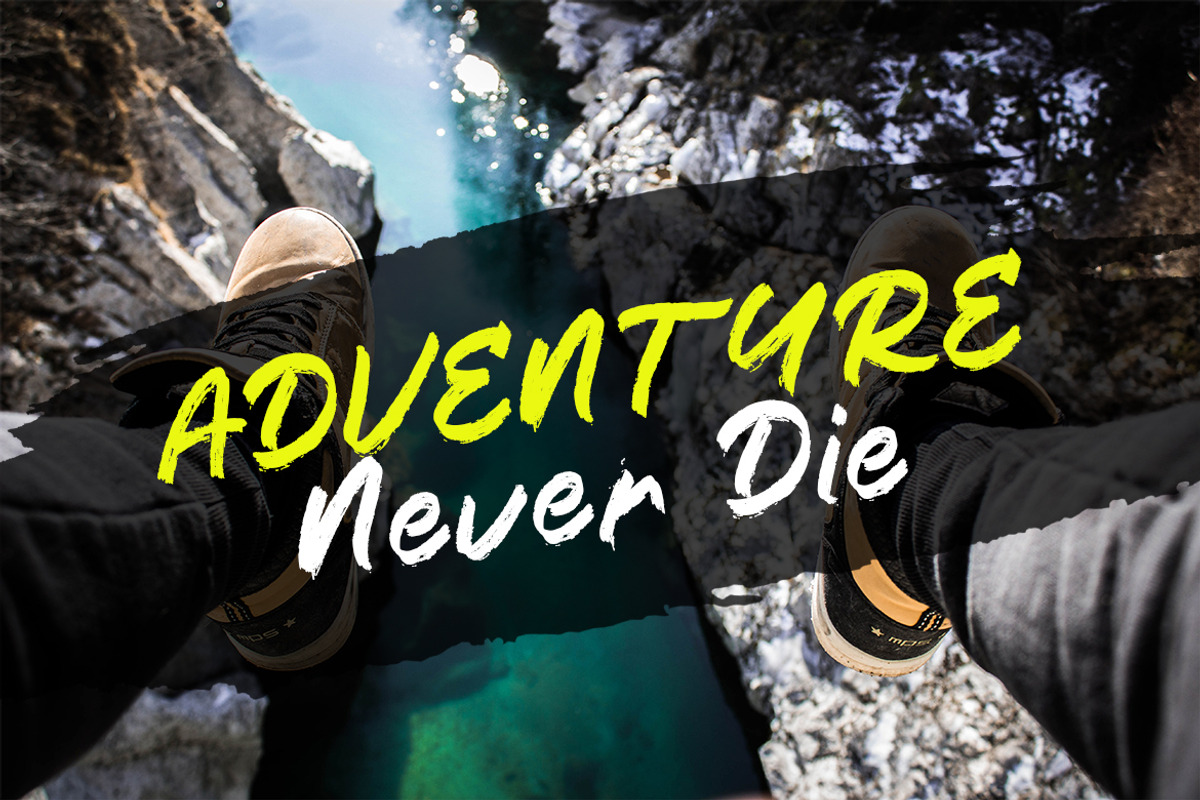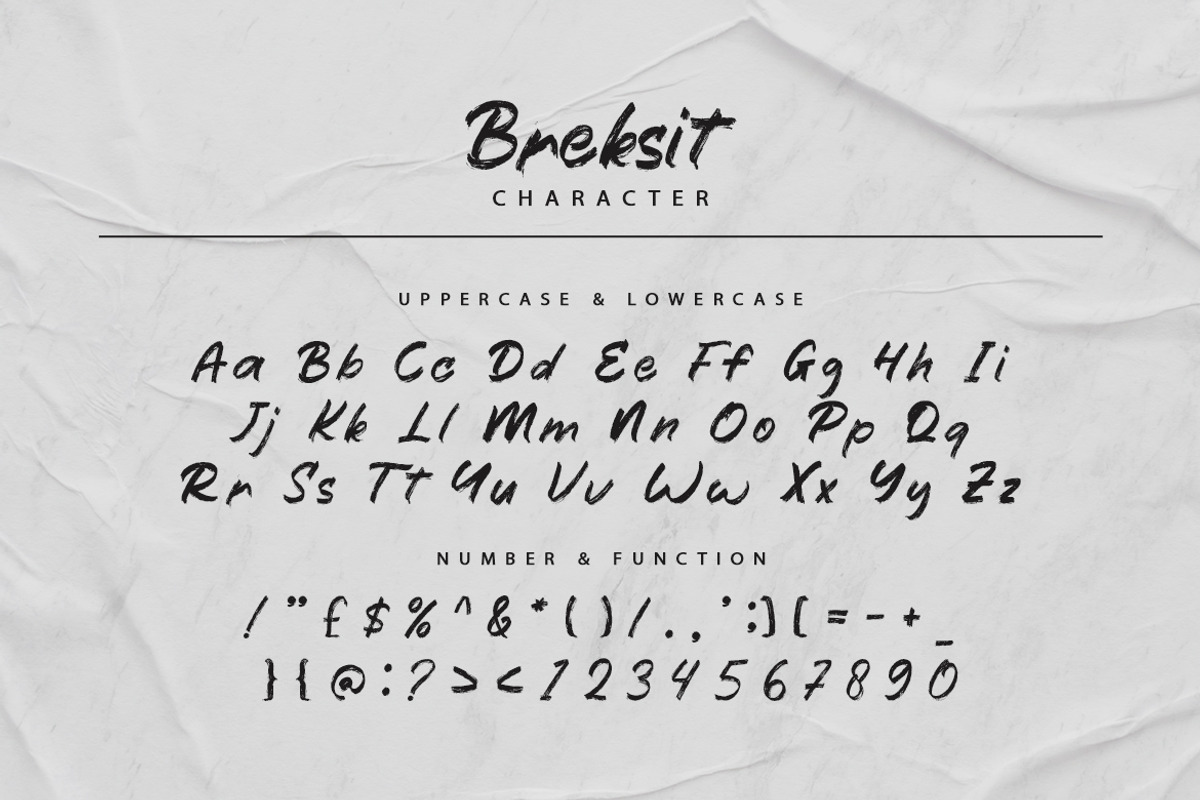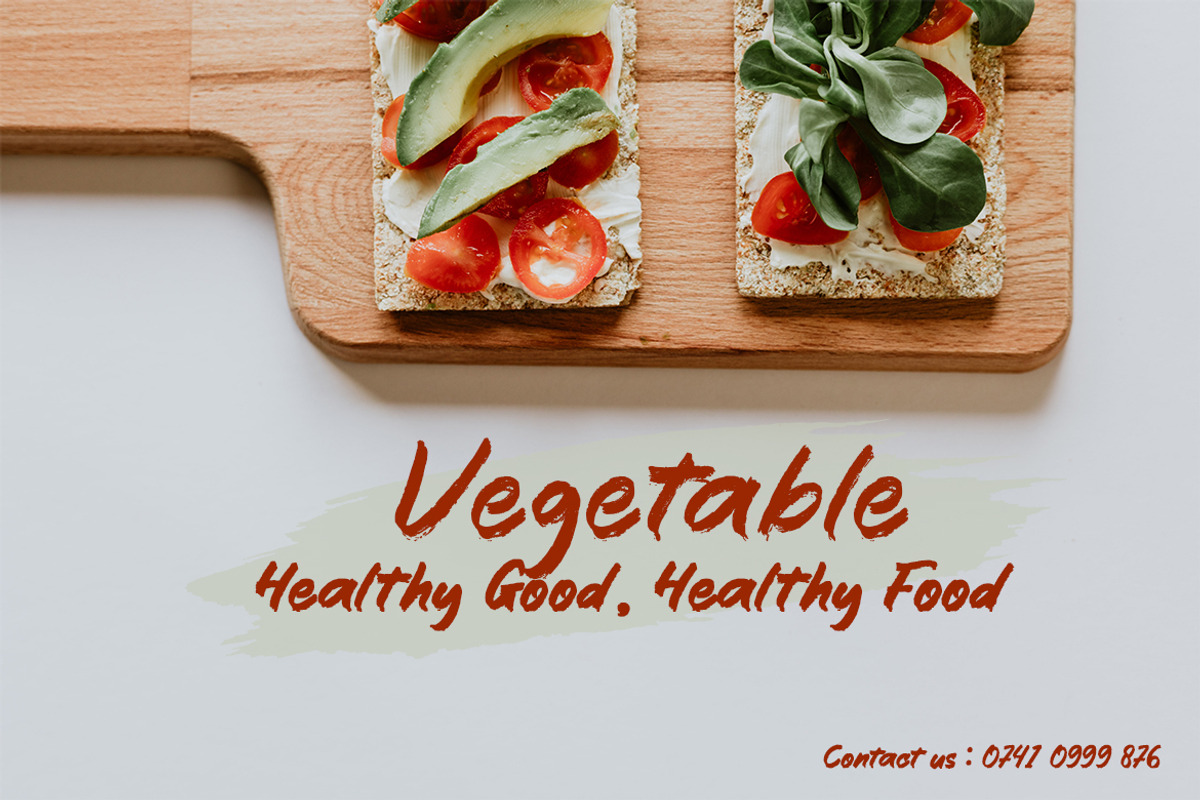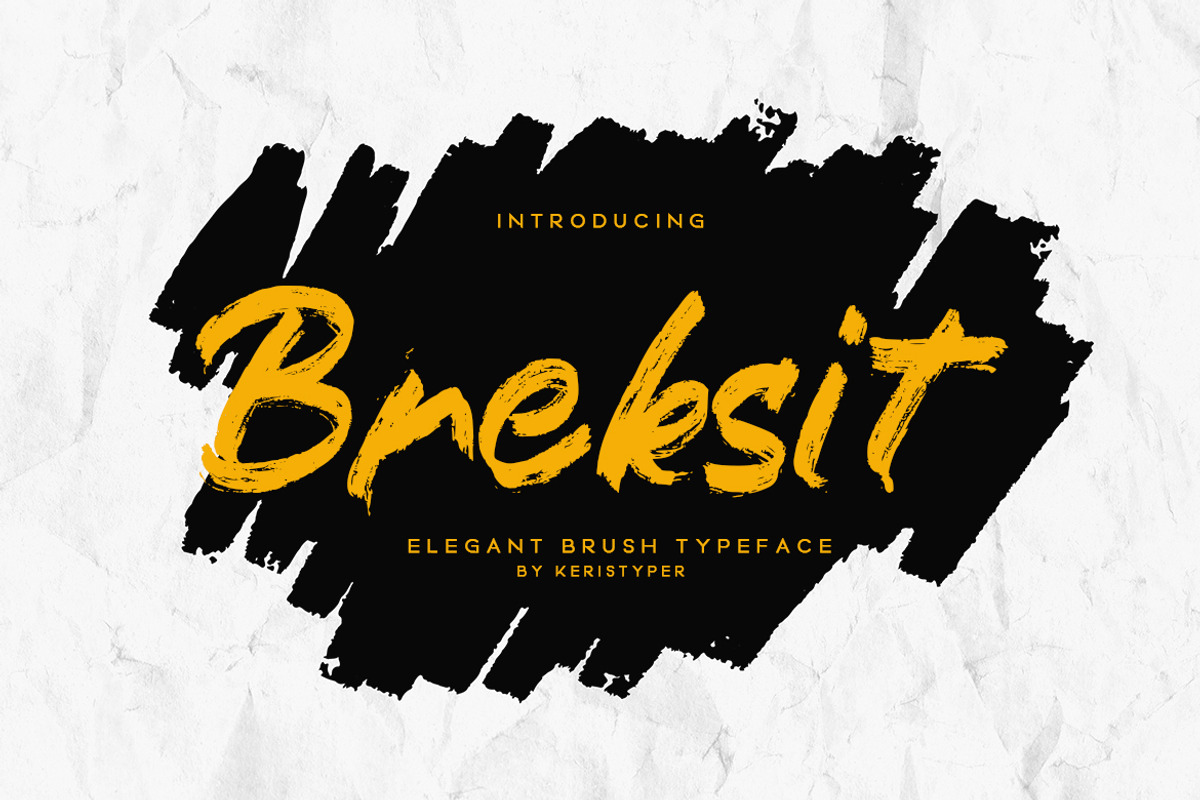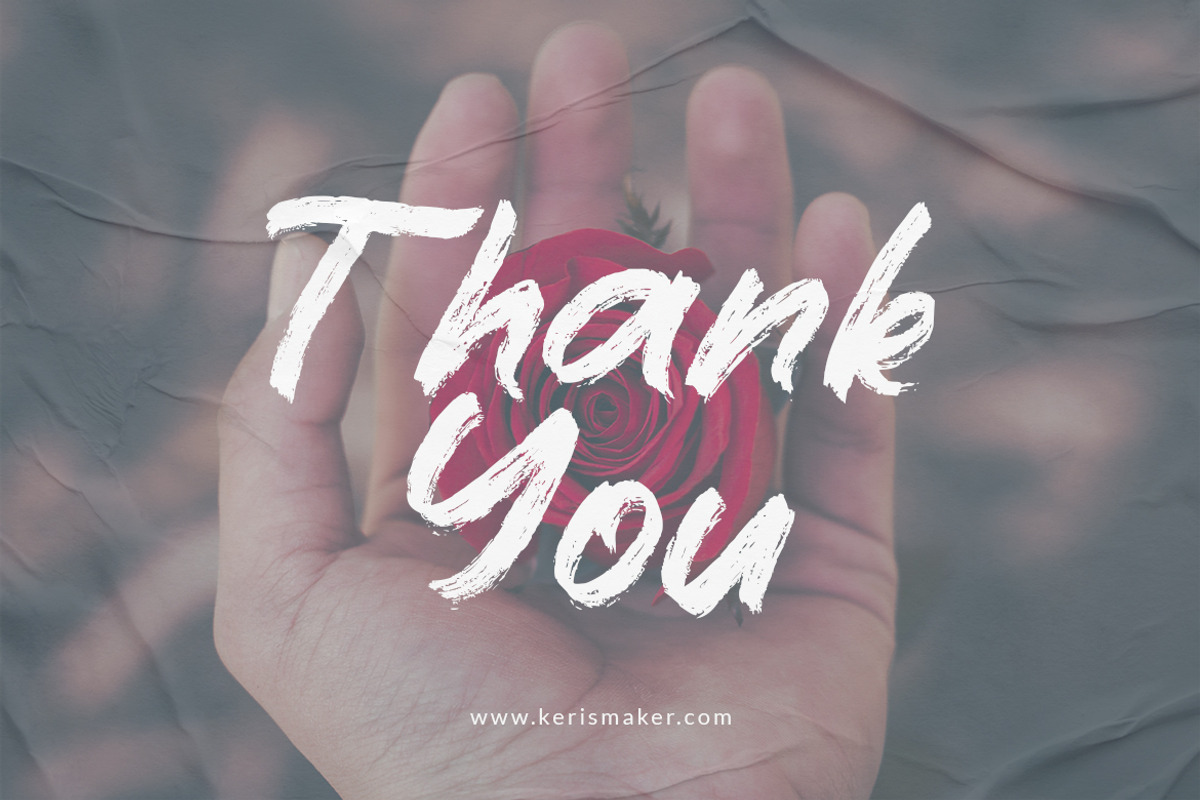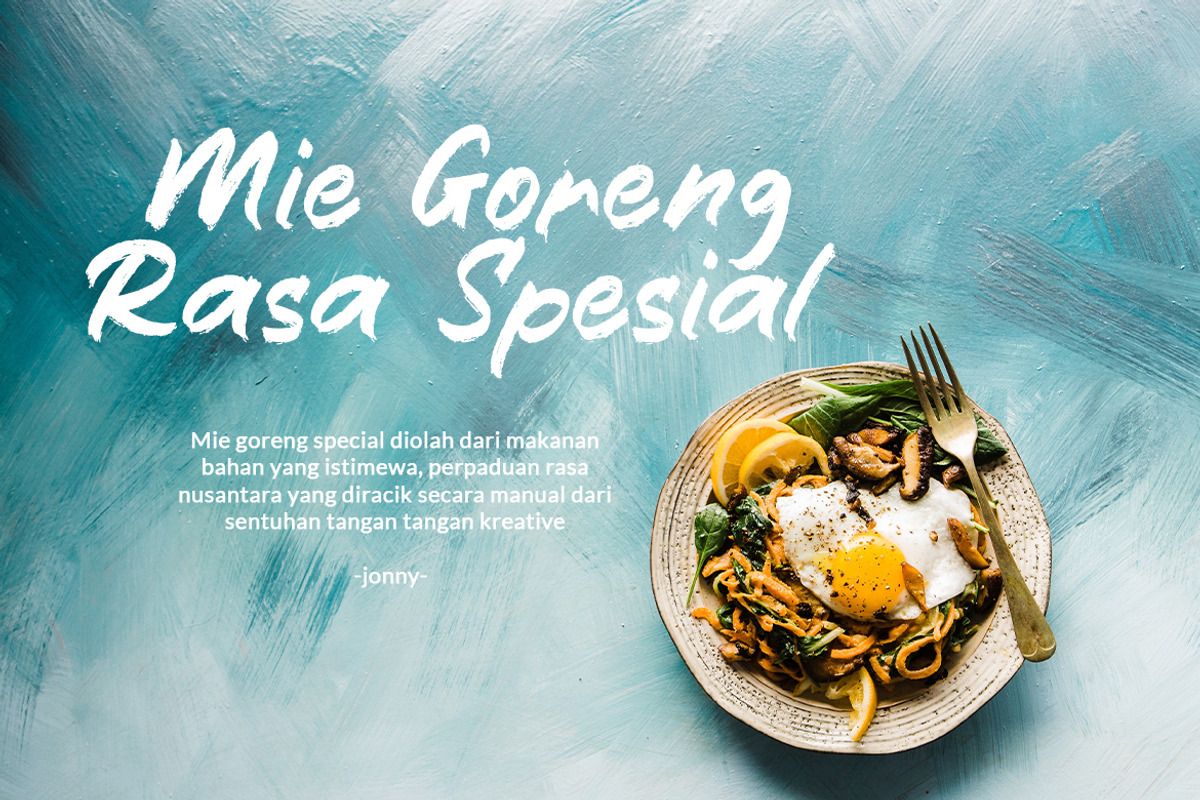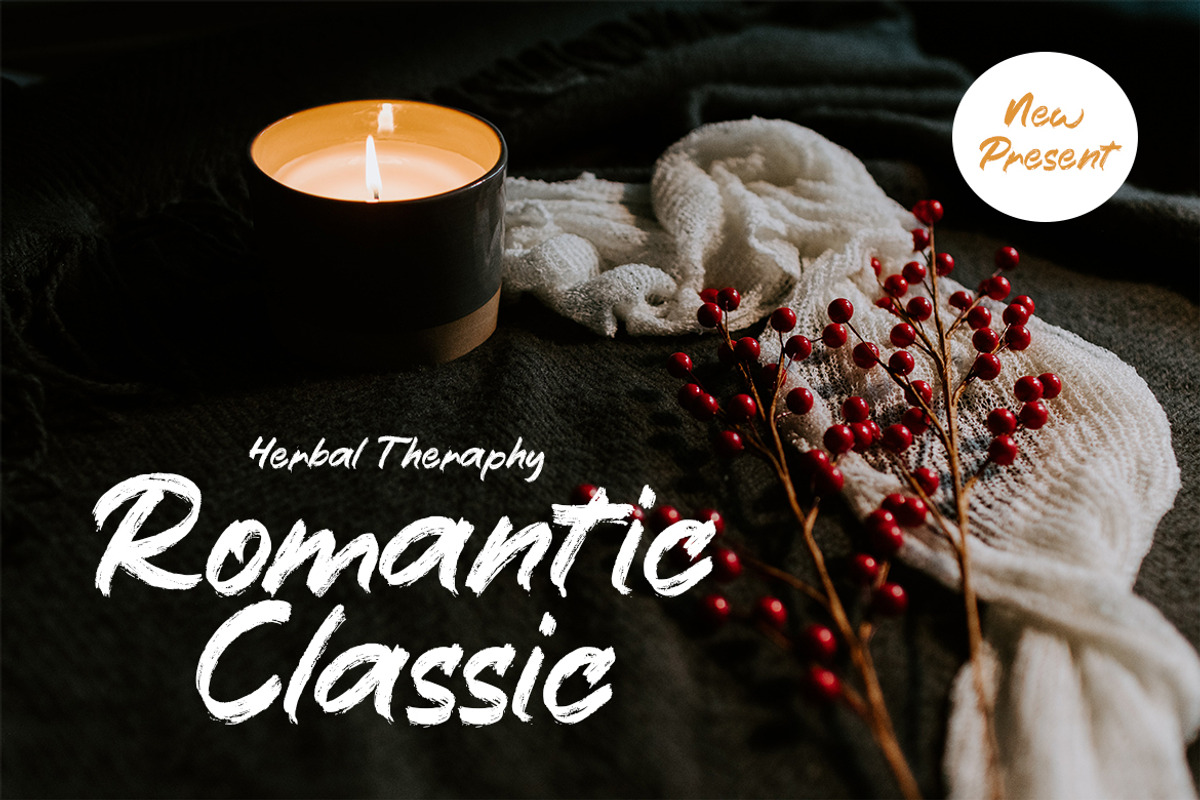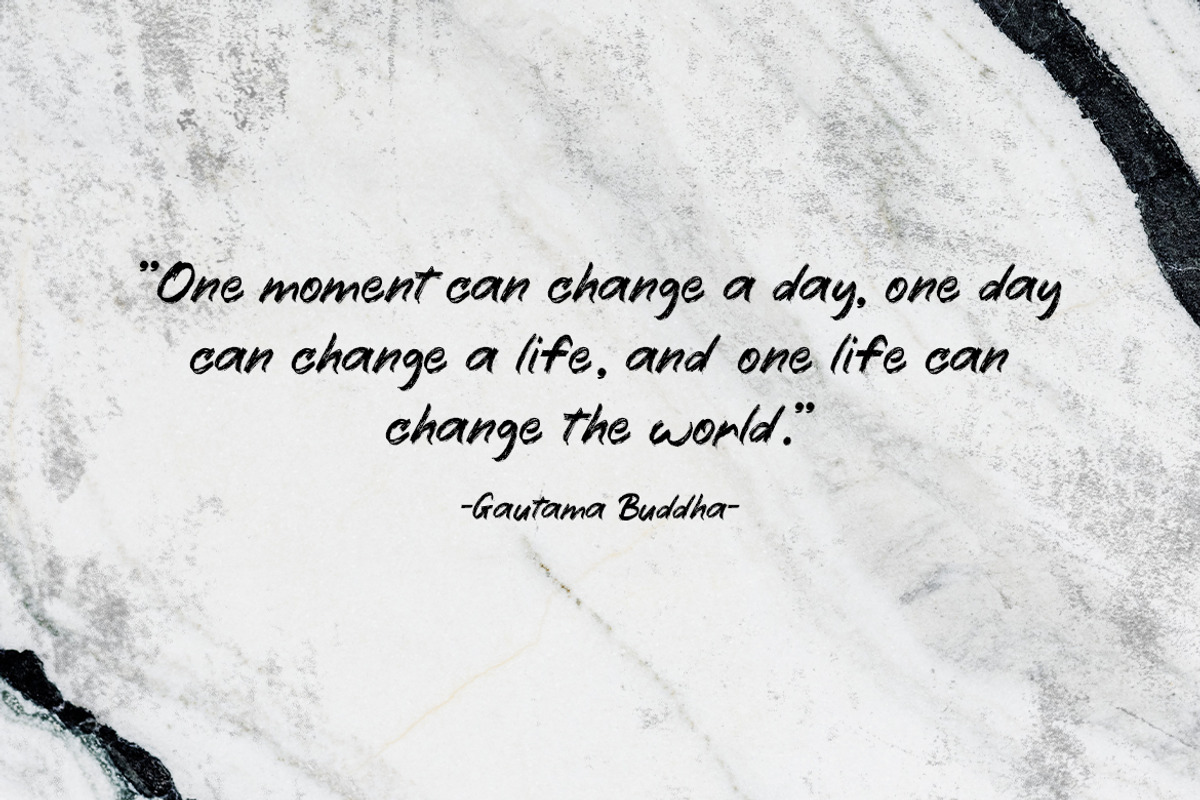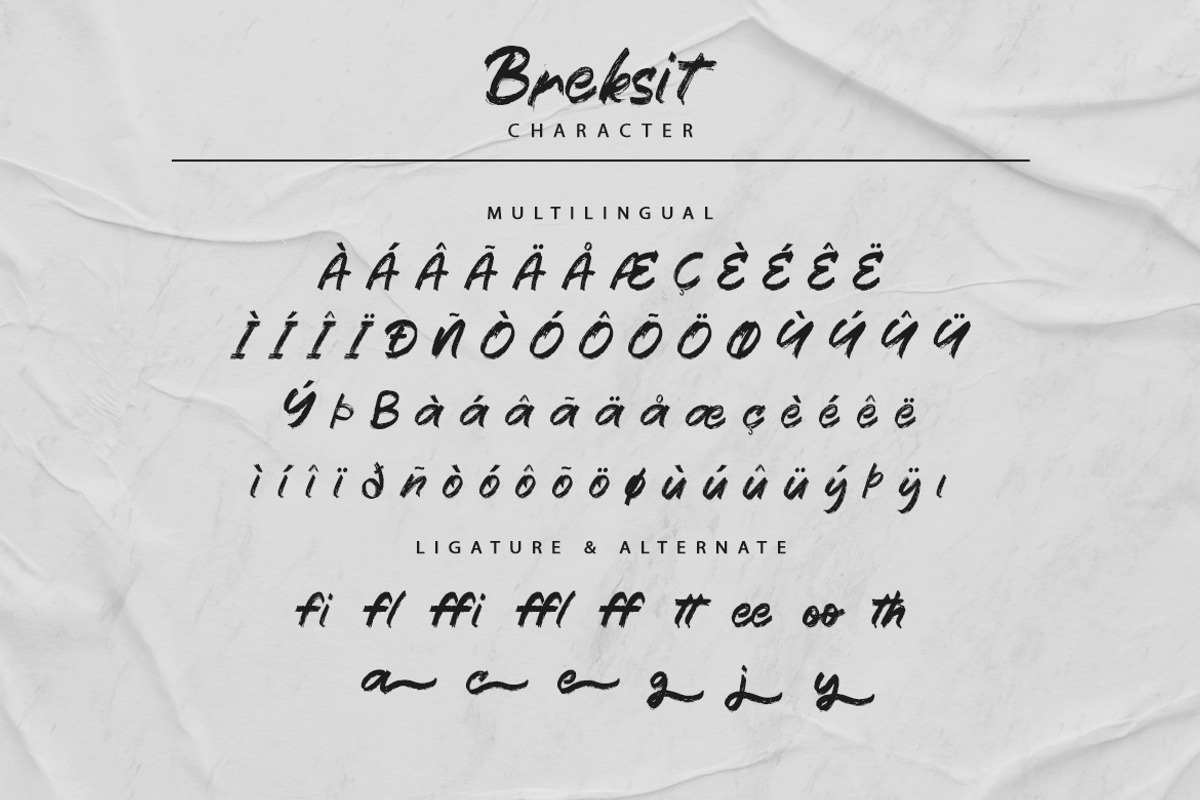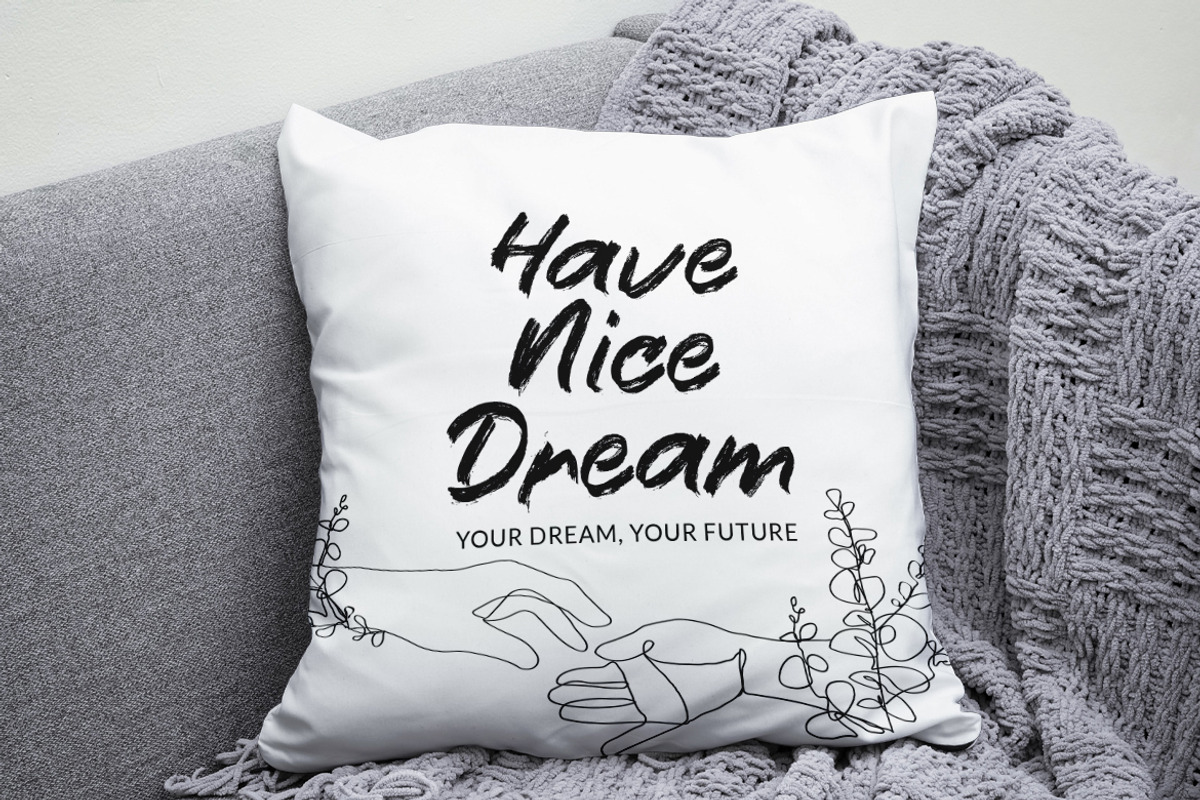
Breksit
Introducing Breksit font made from natural brush hand-drawn look, with adventure concept and bold character. This Font is perfect for traveling and adventure design, badges, logos, posters, branding, packaging, signage, and book cover.
Multilingual support: Afrikaans, Albanian, Catalan, Danish, Dutch, English, Estonian, French, Finnish, German, Icelandic, Indonesian, Italian, Malay, Norwegian, Portuguese, Spanish, Swedish, Zulu, and many more.
- Standard & Multilingual glyphs